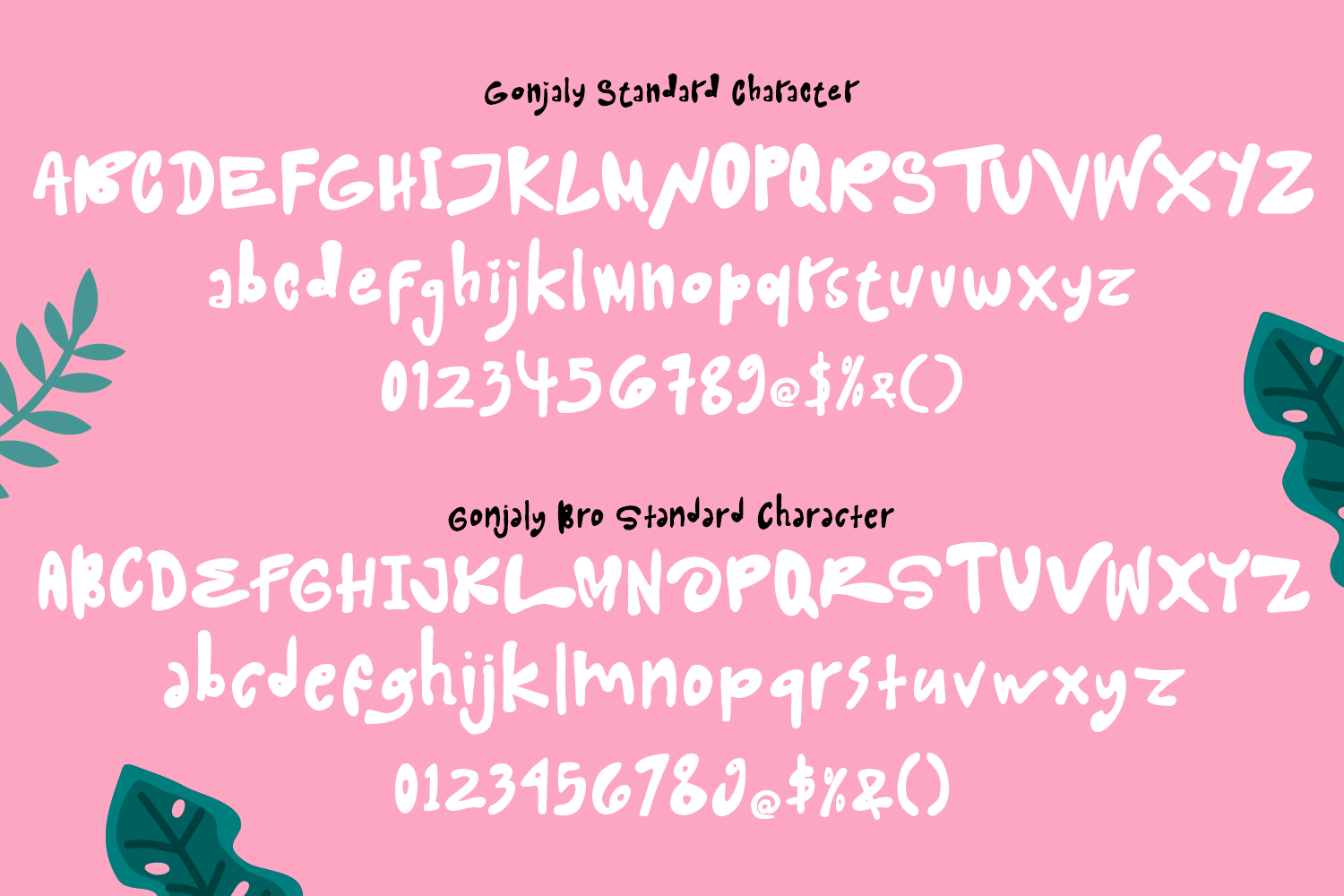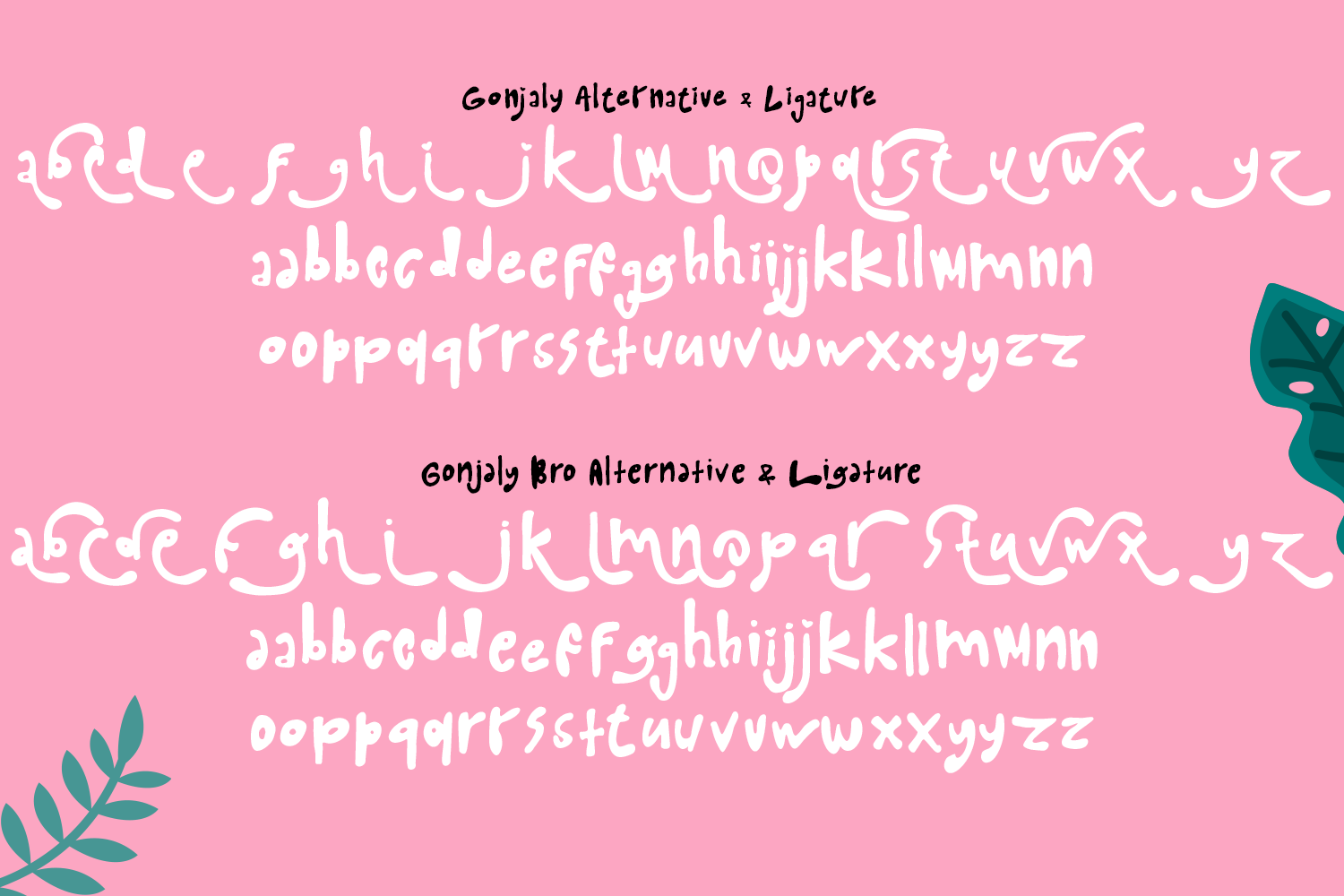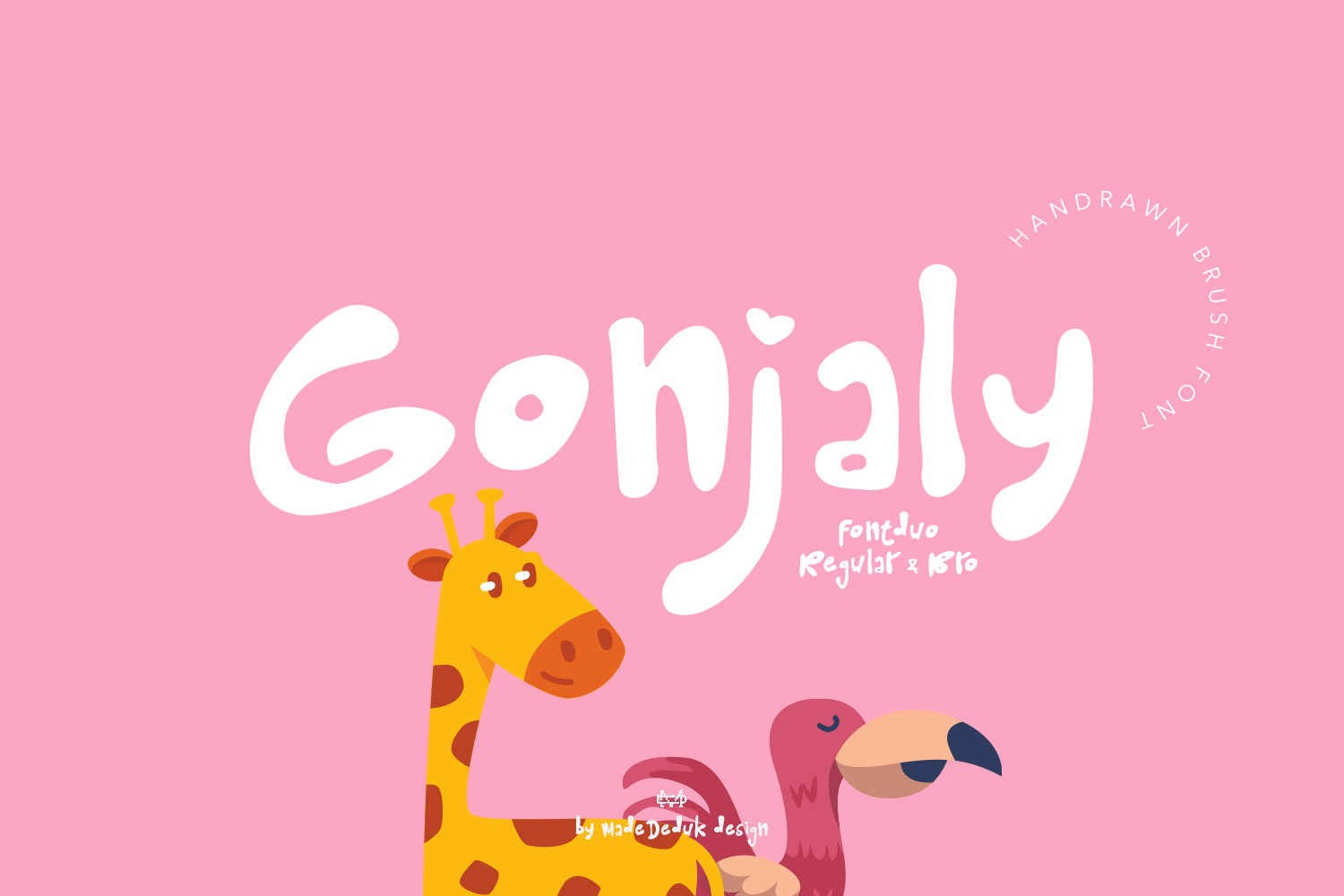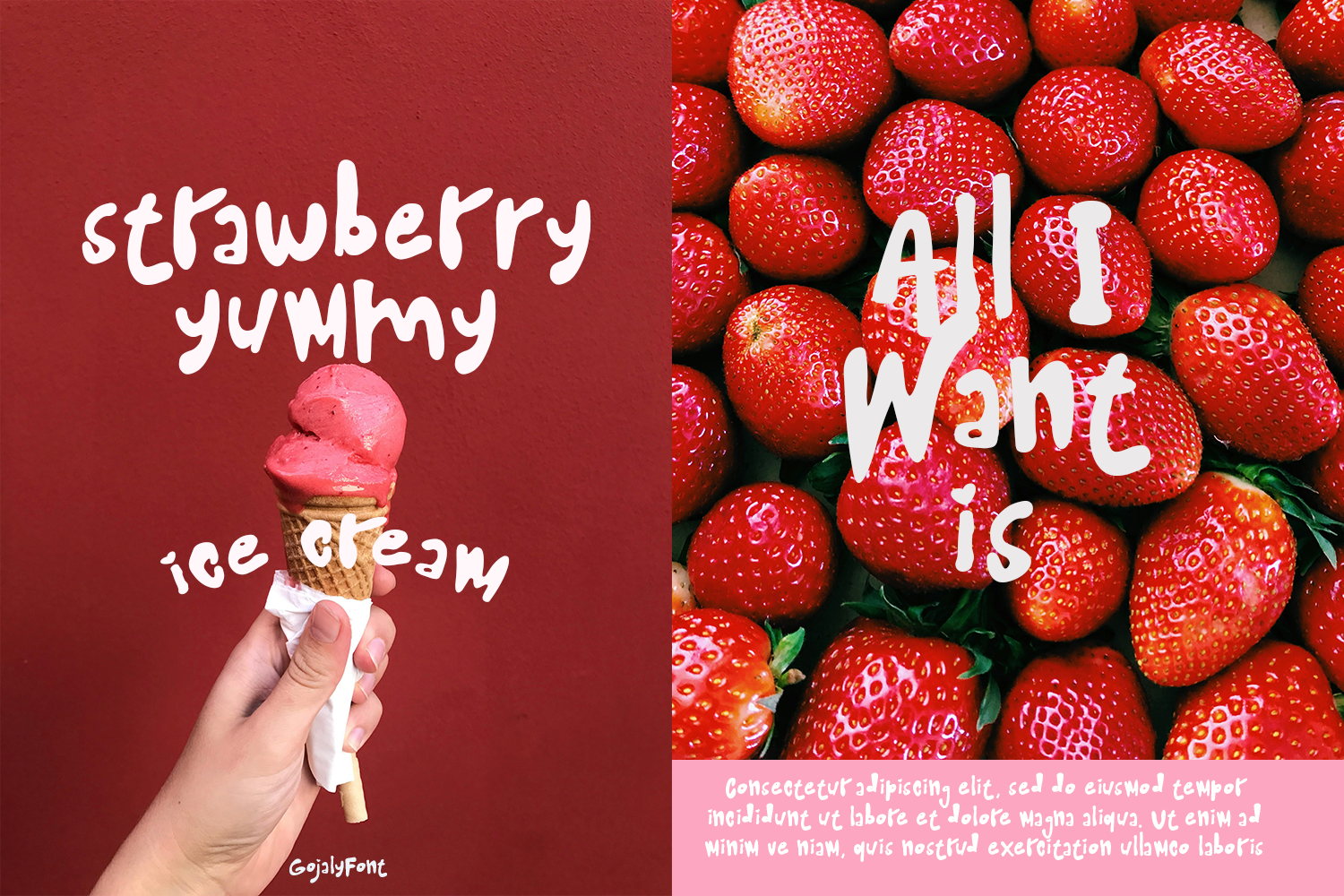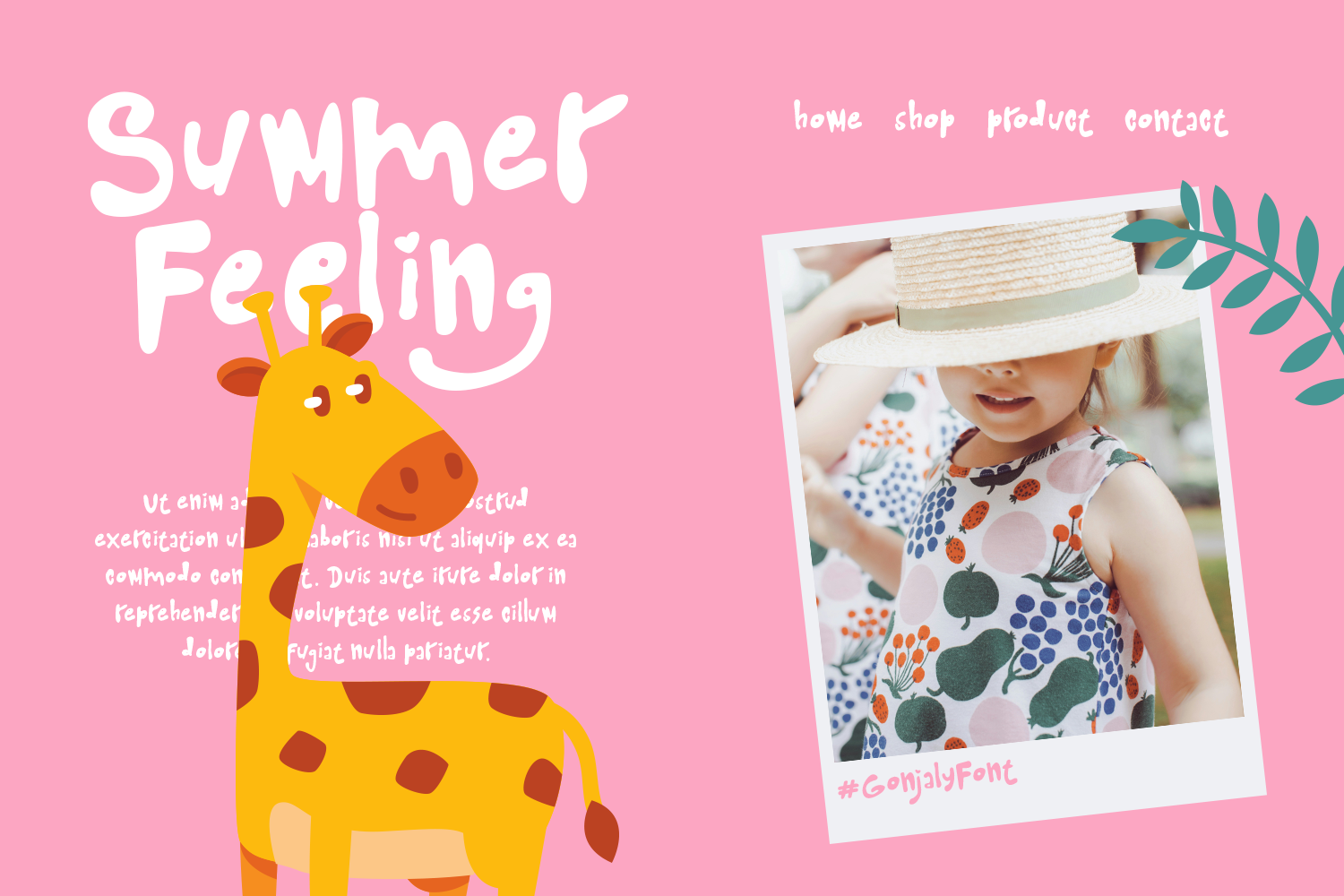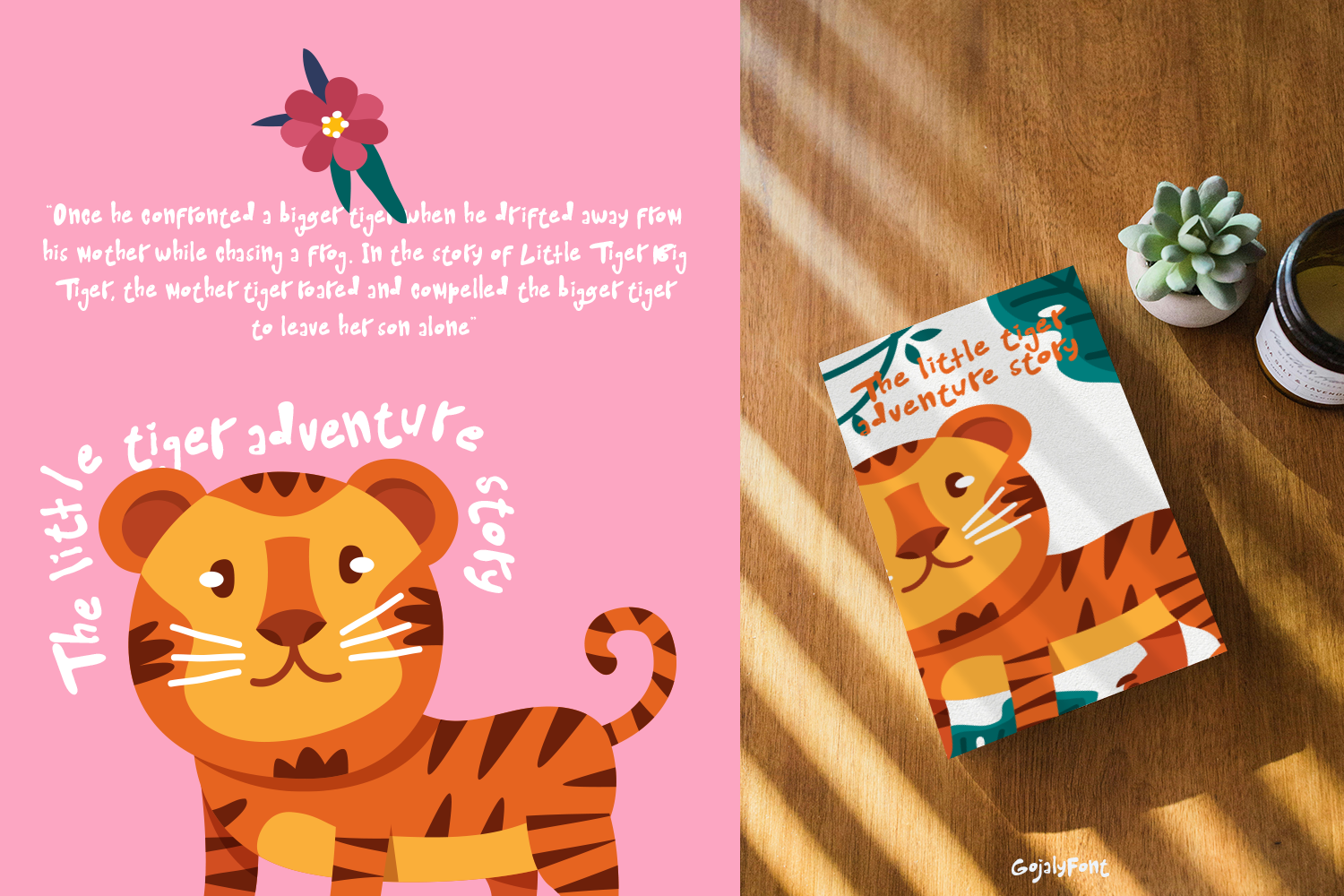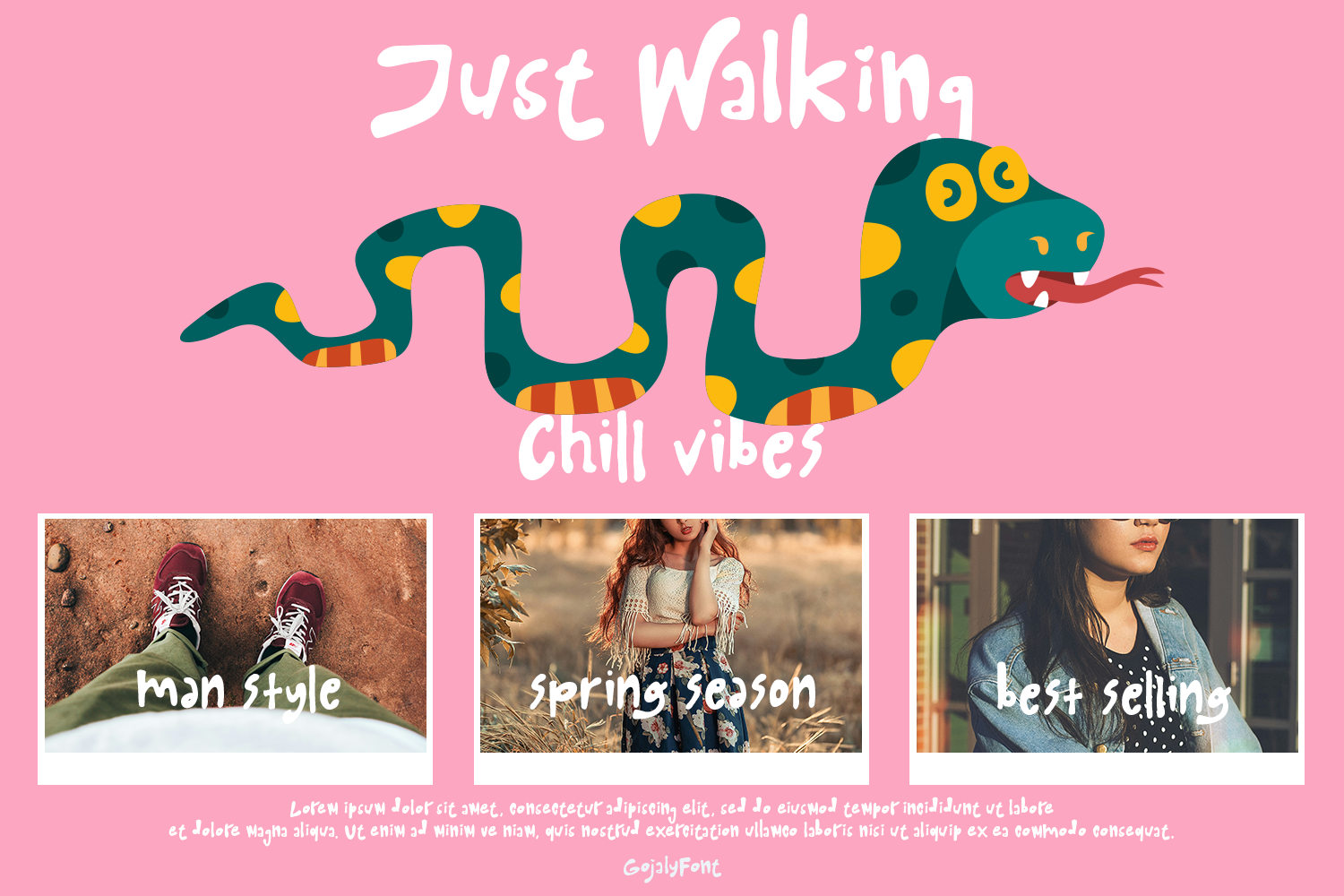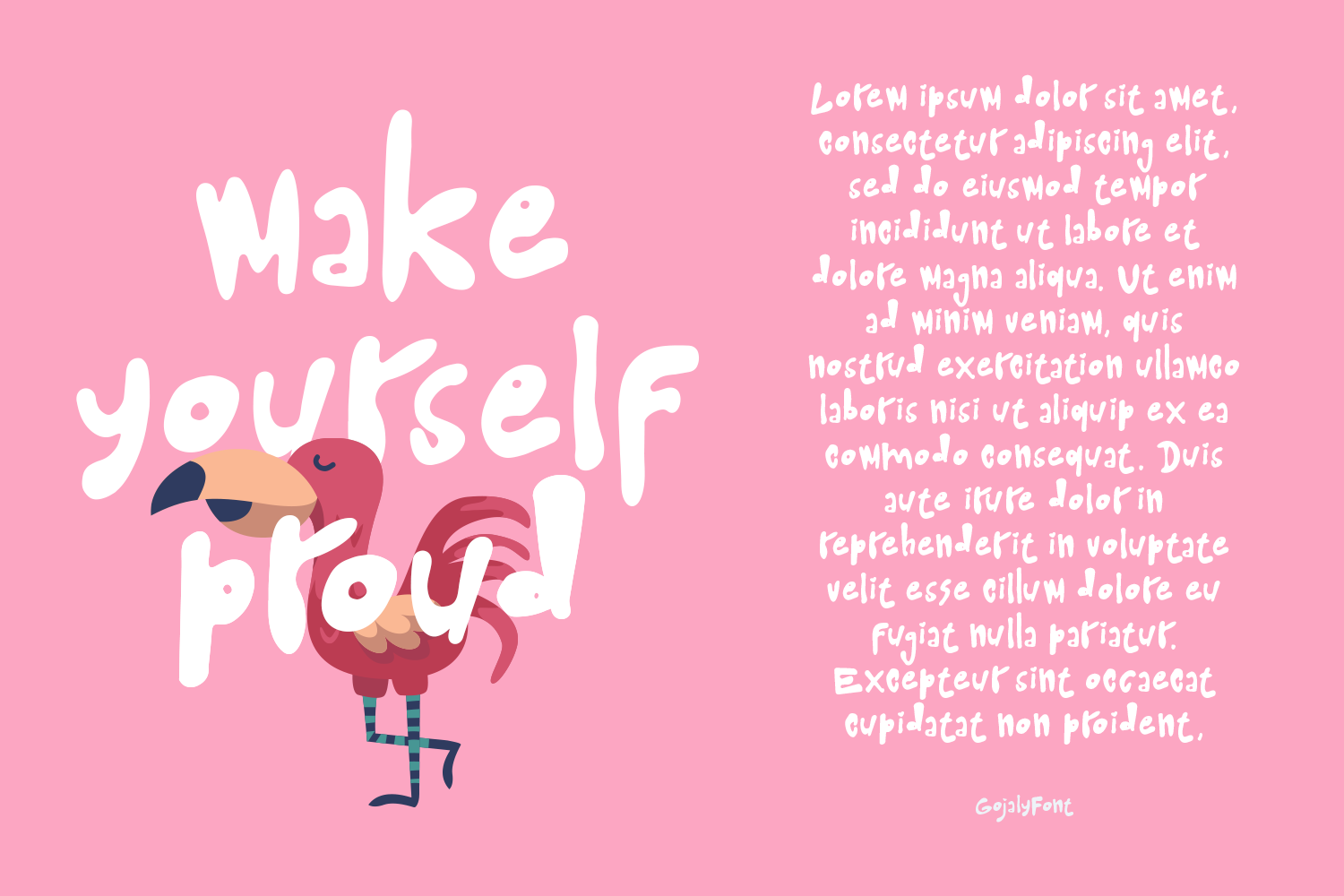
Gonjaly Hand Drawn Font
Introducing Gonjaly is a cute hand drawn come with two style Regular - Bro font style. Super easy to use, you can access these via using OpenType capable software ( like Photoshop, Illustrator, Indesign). You can also access them if you use a Mac and use font book and Textedit. And will be perfect for book, title branding, product packaging, invitation, quotes, label, poster, logo etc.
- Alternative
- Ligature